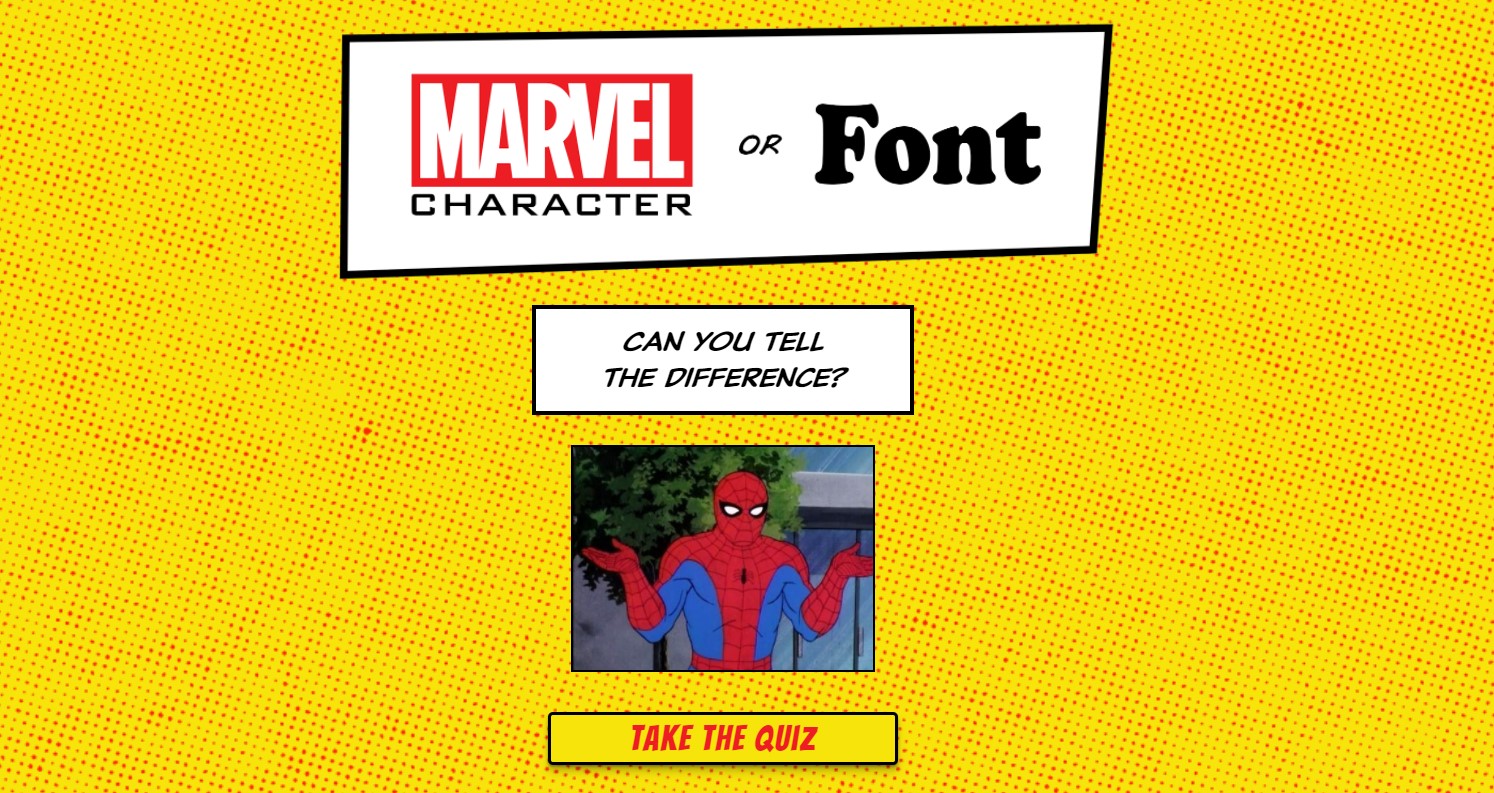
Can you tell the difference between Marvel characters and font names?
Hilarious quiz is harder than you think.
Being able to tell the difference between superhero names and fonts should be easy, right? Well, a Marvel-themed quiz has surfaced online that might prove you wrong, as users are quizzed on fonts and heroes – and it's a lot harder than you think.
Superheroes are renowned for having interesting and recognisable names, and so are fonts. The similarities between the names have been making it difficult for users to decipher between heroes and font in a playful online test. The quiz challenges users to tell the difference between Marvel characters and typeface names, and you'll be surprised to know, the quiz is actually pretty difficult. If you are searching for some font inspiration, make sure you check out our roundup of the best free fonts.
Auckland based software developer Carl Smith is the brains behind this hilarious quiz. With its vibrant comic style website, visitors are challenged to see if they can tell their Draxs from their Futuras. We have to admit, the quiz is so much harder than you may think, as Marvel fans with a fairly vast knowledge of fonts, we were still only able to get 14 out of 20.
Is Revanche a powerful mutant assassin, or a smart and professional typeface? Is Allura a demonic-looking supervillain or an elegant handwriting font? Out of the context of a comic book or a font collection, it's incredibly tough (and certainly entertaining) trying to distinguish the characters from the fonts.